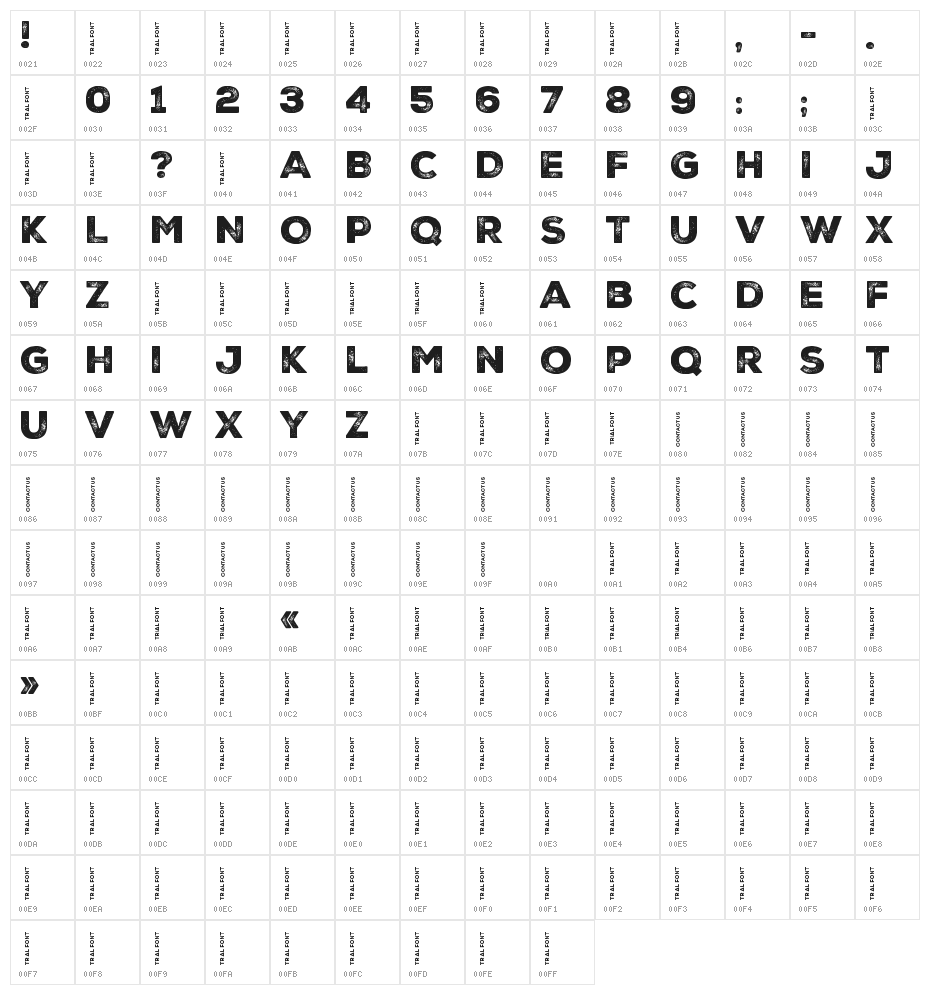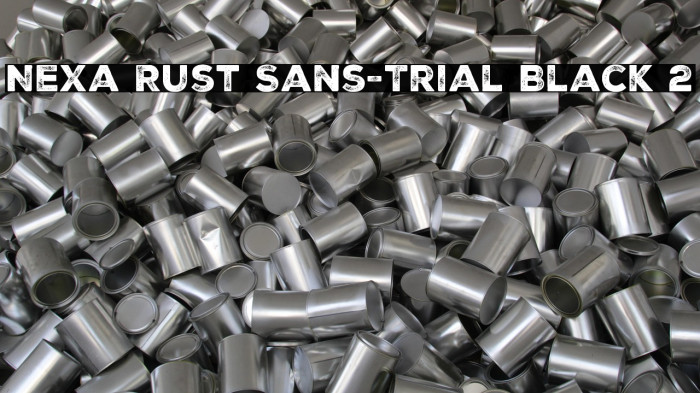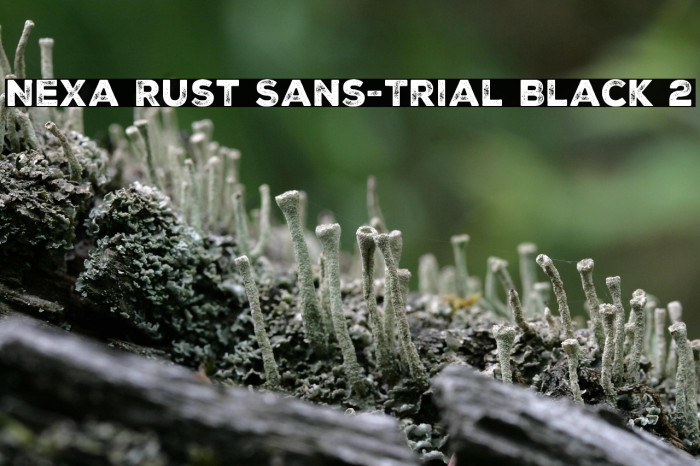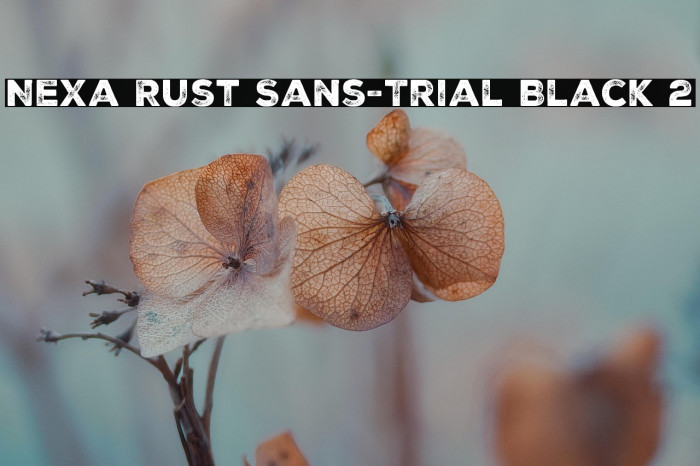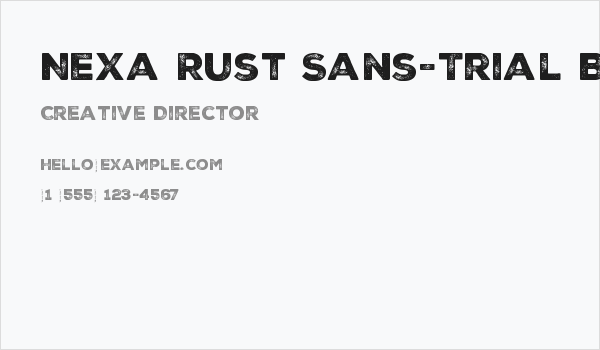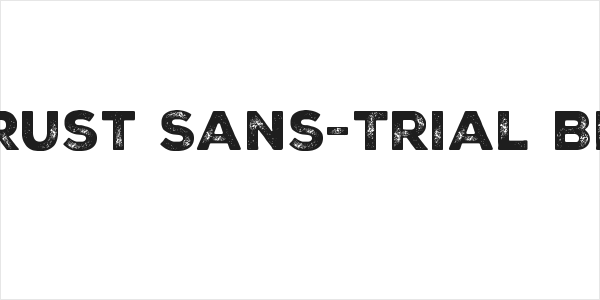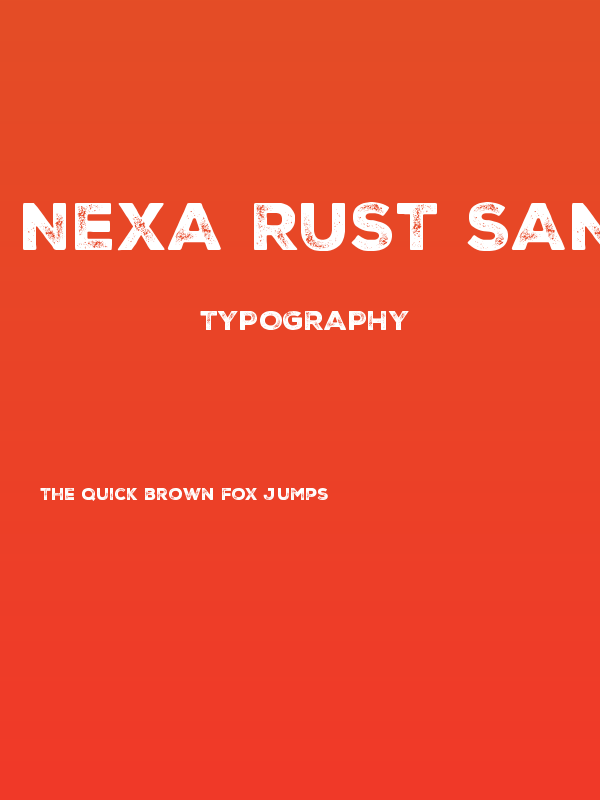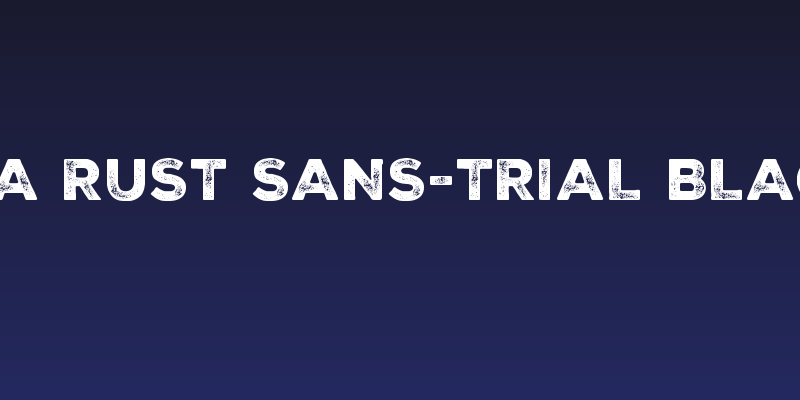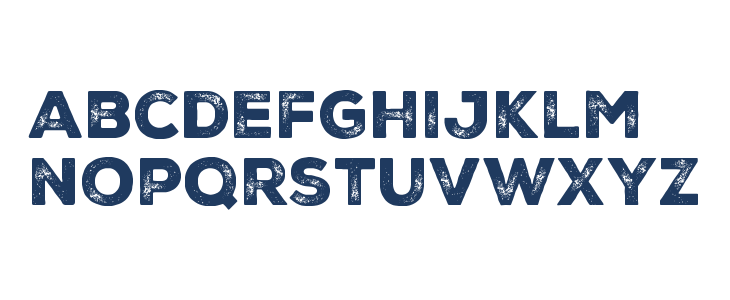
Nexa Rust Sans-Trial Black 2 Font
Nexa Rust Sans-Trial Black 2 Description
This font features a bold, distressed style with a textured appearance that gives it a rugged, vintage feel. The uppercase and lowercase letters are consistent in their boldness, with a slightly roughened edge that adds character and depth. The numbers and special characters maintain this distressed look, ensuring a cohesive appearance across all glyphs. The font's design is ideal for projects that require a strong, impactful presence, such as posters, logos, and branding materials. Its unique texture makes it stand out, providing a sense of authenticity and handcrafted quality.
| Proposed Projects | Ideal for posters, logos, branding materials, and any design requiring a strong, vintage aesthetic. |